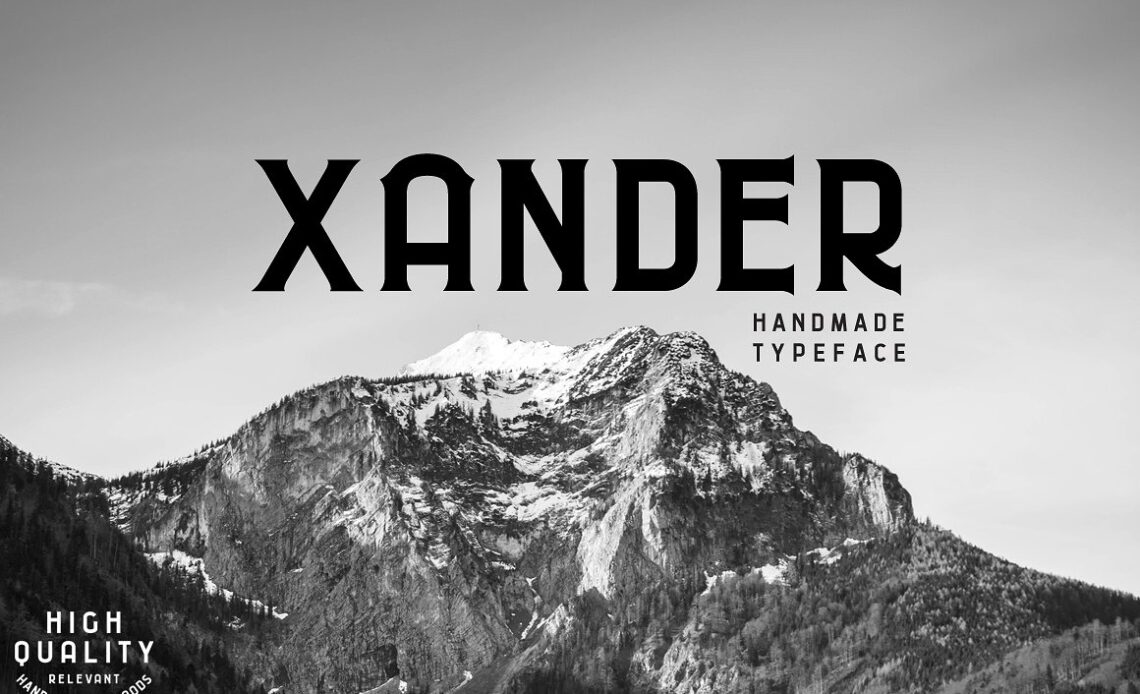
Unleash the Timeless Allure of Xander Font: A Stroke of Design Brilliance
Embark on a Typographic Journey into the Realm of Xander Font, an Exquisite Creation of 1871 Project. Inspired by an Era of Handcrafted Ingenuity, Xander Font Revives the Essence of Traditional Craftsmanship in a Modern Digital Avatar. This Sans & Serif Masterpiece Offers Two Exquisite Styles - Sans and Serif - Both Brimming with Sophistication and Creative Charm.
Xander Sans, with Its Precision and Clarity, Evokes a Sense of Minimalist Elegance. Its Clean Lines and Balanced Proportions Create a Timeless Aesthetic, Perfect for Designs That Demand Precision and a Touch of Modernity. In Contrast, Xander Serif Exudes an Air of Classic Charm, with Graceful Serifs That Add a Hint of Sophistication and Elegance to Your Designs. The Fluid Strokes and Delicate Terminals of Xander Serif Lend a Refined Touch to Your Creative Endeavors.
Whether You're a Seasoned Designer or Just Starting Your Typographic Exploration, Xander Font is Your Perfect Companion. Its Versatile Nature Makes It Ideal for a Wide Range of Design Projects, from Website Layouts and Logos to Marketing Materials and Social Media Graphics. Let Xander Font Elevate Your Designs, Transforming Them into True Works of Art.
Immerse Yourself in the World of Xander Font and Experience the Joy of Crafting Designs That Speak Volumes. Its Expansive Character Set, Including Many International Characters, Ensures Universal Appeal and Seamless Integration into Your Global Design Projects. Unleash Your Creativity and Let Xander Font Be Your Muse, Guiding You to Design Excellence.